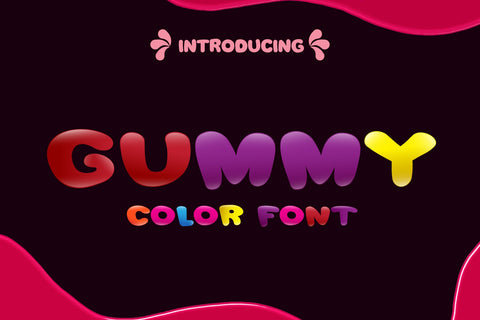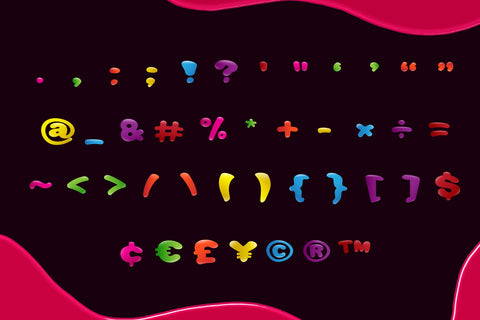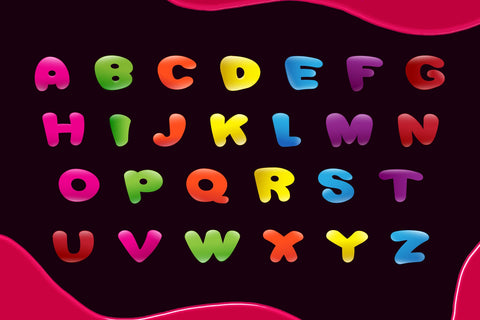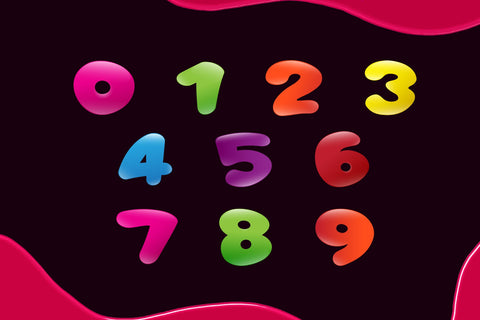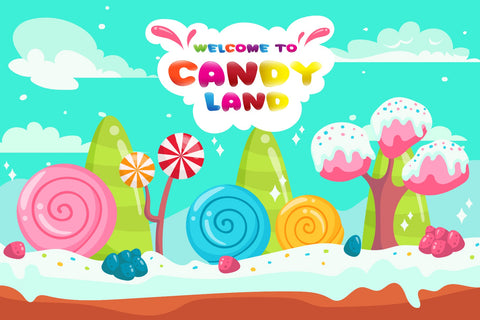
Gummy Color Font
Gummy Font is a color font designed to have a soft, cute, bright, and fun feel. Fall in love with its authentic feel and use it to create gorgeous invitations, beautiful stationary art, eye-catching social media posts, and cute greeting cards. Add this beautiful font to each of your creative ideas, and notice how it makes them stand out.